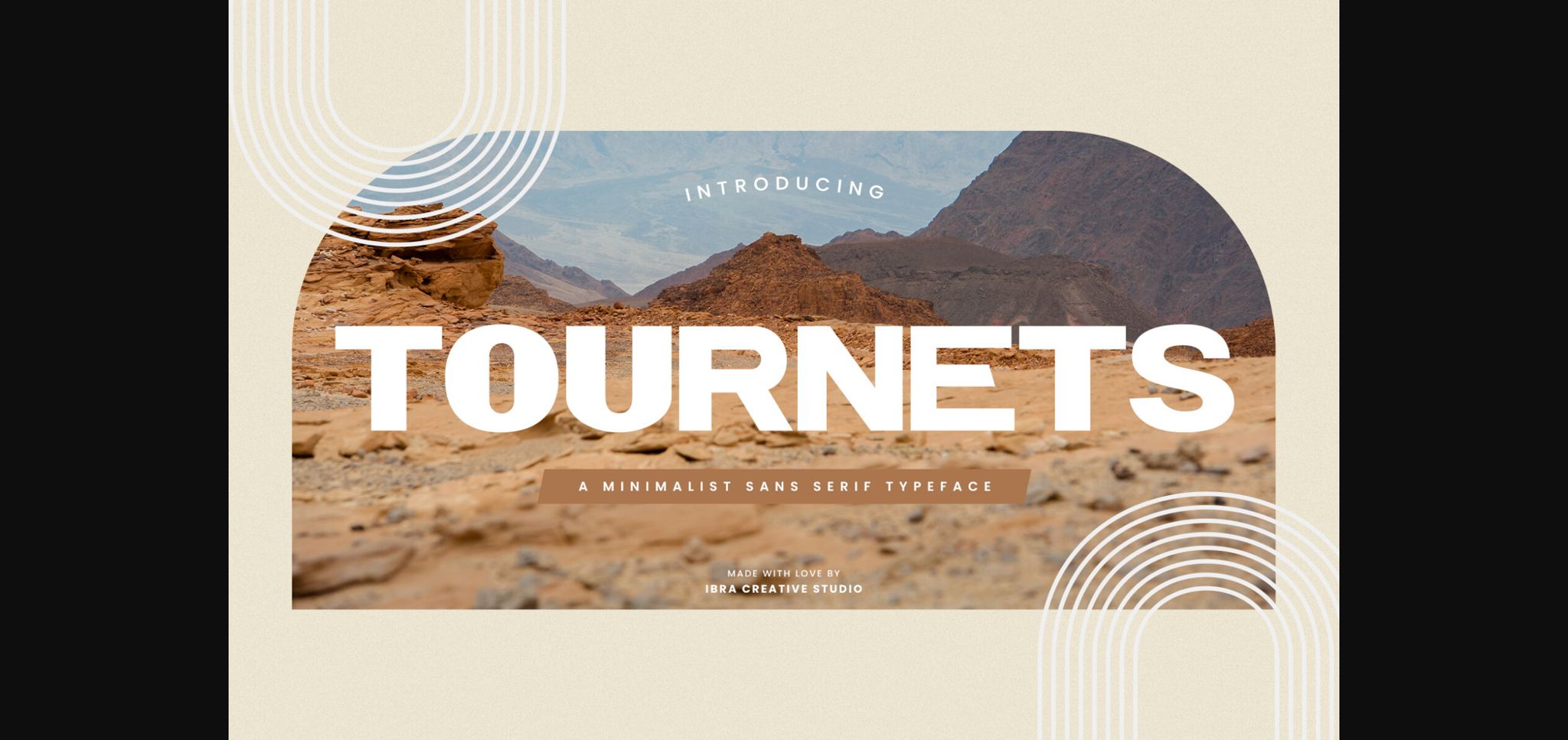
About Tournets Font
Tournets, a minimalist sans-serif typeface, epitomizes simplicity and contemporary elegance. Its clean lines and unadorned characters exude a sense of modernity and sophistication, making it an ideal choice for those seeking a timeless and versatile typographic solution. Tournets seamlessly blends form and function, ensuring optimal readability while maintaining a sleek visual appeal. The balanced spacing and uniformity of its letterforms contribute to a harmonious and understated aesthetic, allowing Tournets to effortlessly adapt to diverse design applications.